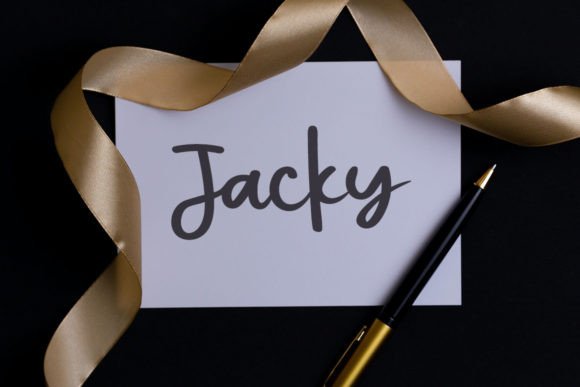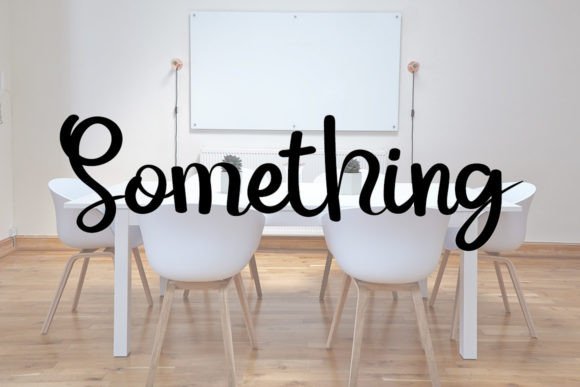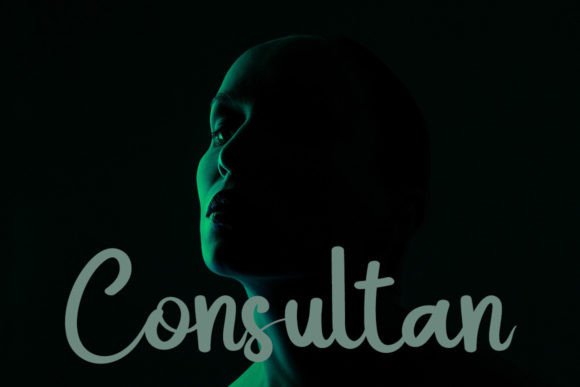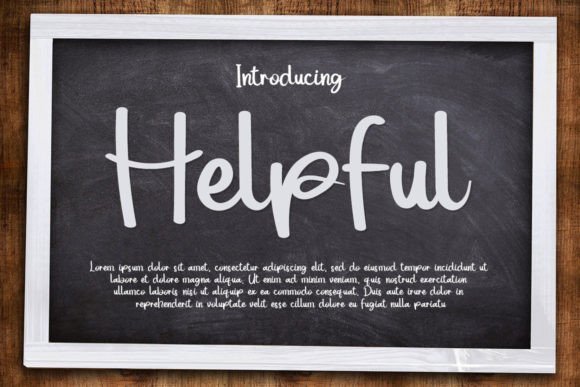
Introduction to Helpful Font
Introducing Helpful, a stunning script font that is sure to add elegance and sophistication to your designs.
This beautiful typeface features intricate, flowing lines that emulate the natural movement of handwriting, making it the perfect choice for creating unique and personalized designs Whether you’re working on a wedding invitation, a branding project, or a social media post.
Helpful Font offers exceptional quality and versatility, making it a valuable addition to your design toolkit. Whether you’re creating for personal projects or commercial use, Helpful Font delivers professional results.